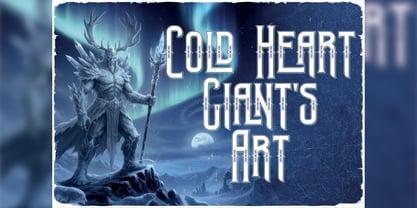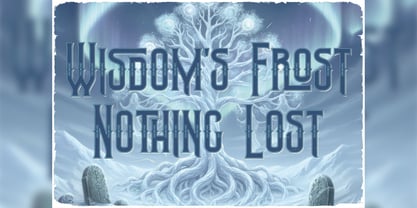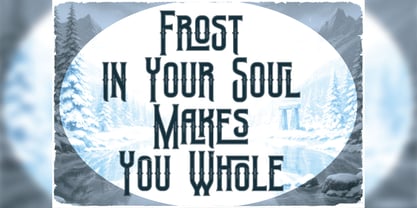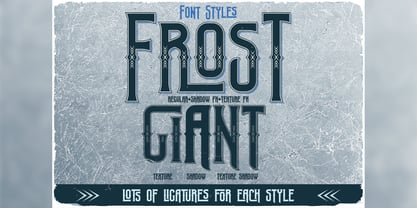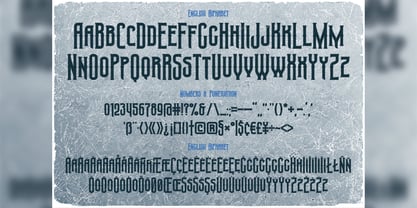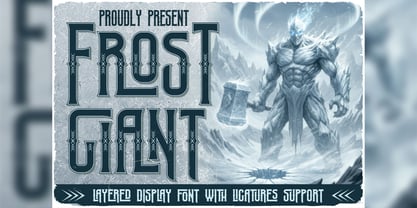
Frost Giant
by Vozzy
Introducing "Frost Giant," a distinctive font designed to make your headlines and accent inscriptions stand out. Perfect for attracting attention, this font features a rich array of additional characters, punctuation marks, and multilingual options. With a generous selection of standard ligatures, ensure your design software supports this OpenType feature for optimal use. "Frost Giant" is an excellent choice for enhancing your creative projects, making it ideal for branding, web design, and editorial layouts. Elevate your designs with this eye-catching typeface!